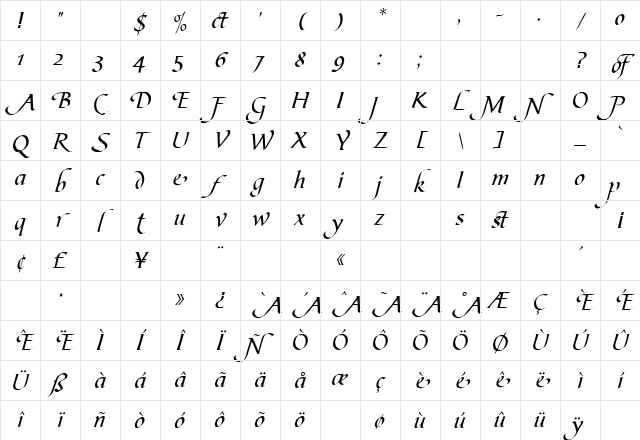
BibleScript Style2 Plain Free Font
BibleScript Style2 Plain
Design Context for BibleScript Style2
BibleScript Style2 flows with the natural rhythm of handwritten lettering, making it ideal for designs that call for warmth and personal expression.
Font Pairing: Combine BibleScript Style2 with a simple geometric sans for maximum contrast - the tension between flowing curves and clean structure is a classic typographic pairing.
Pro Tip: Use BibleScript Style2 for short runs of text - names, titles, or taglines. Extended body copy in script faces tires the eye quickly.